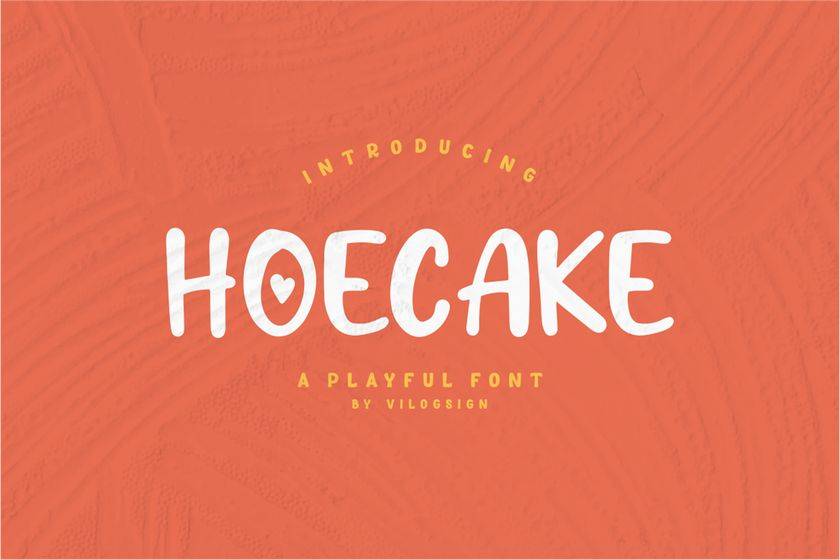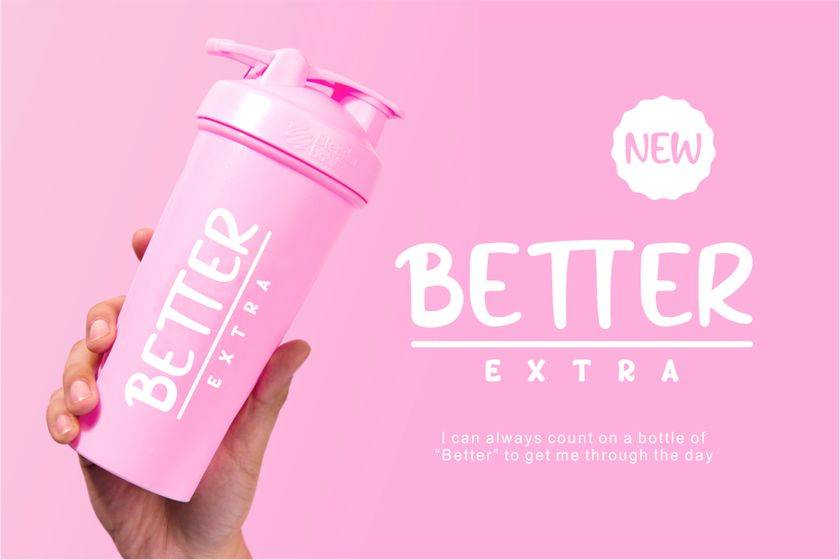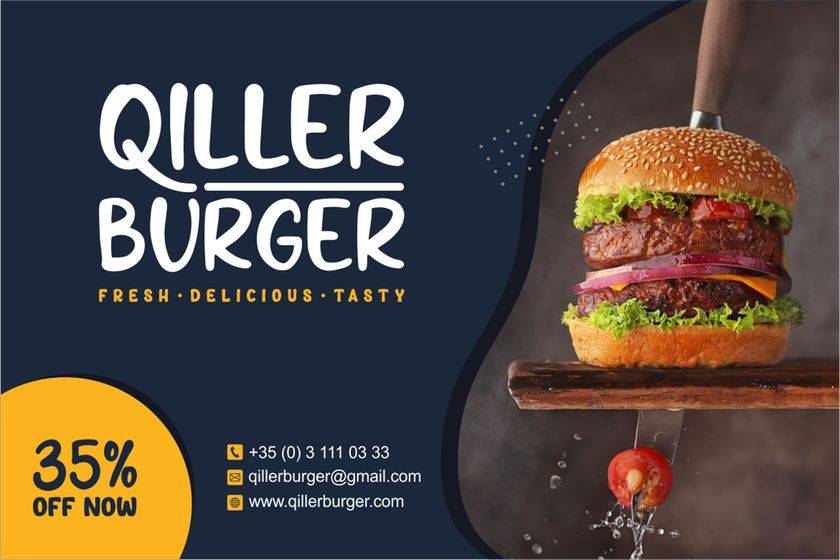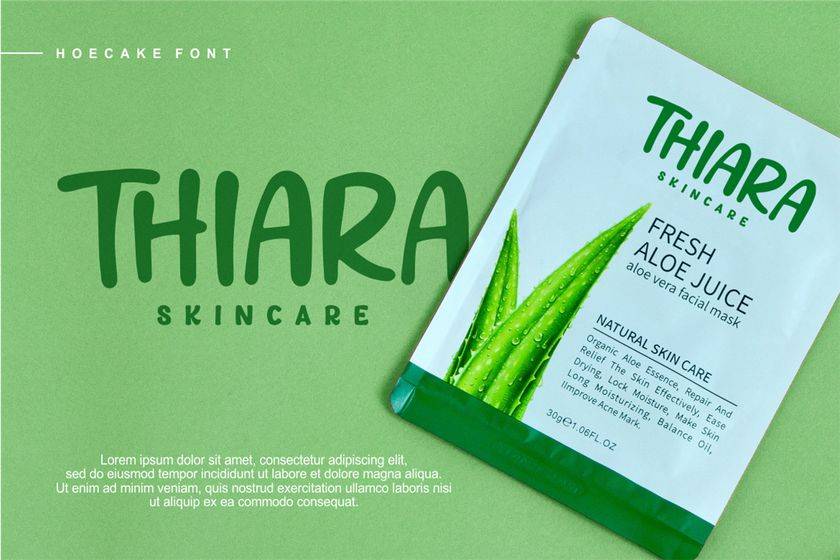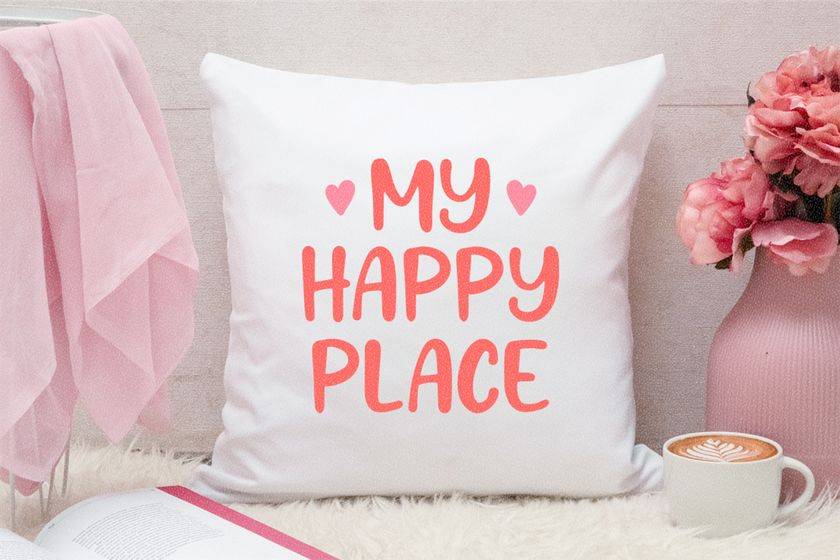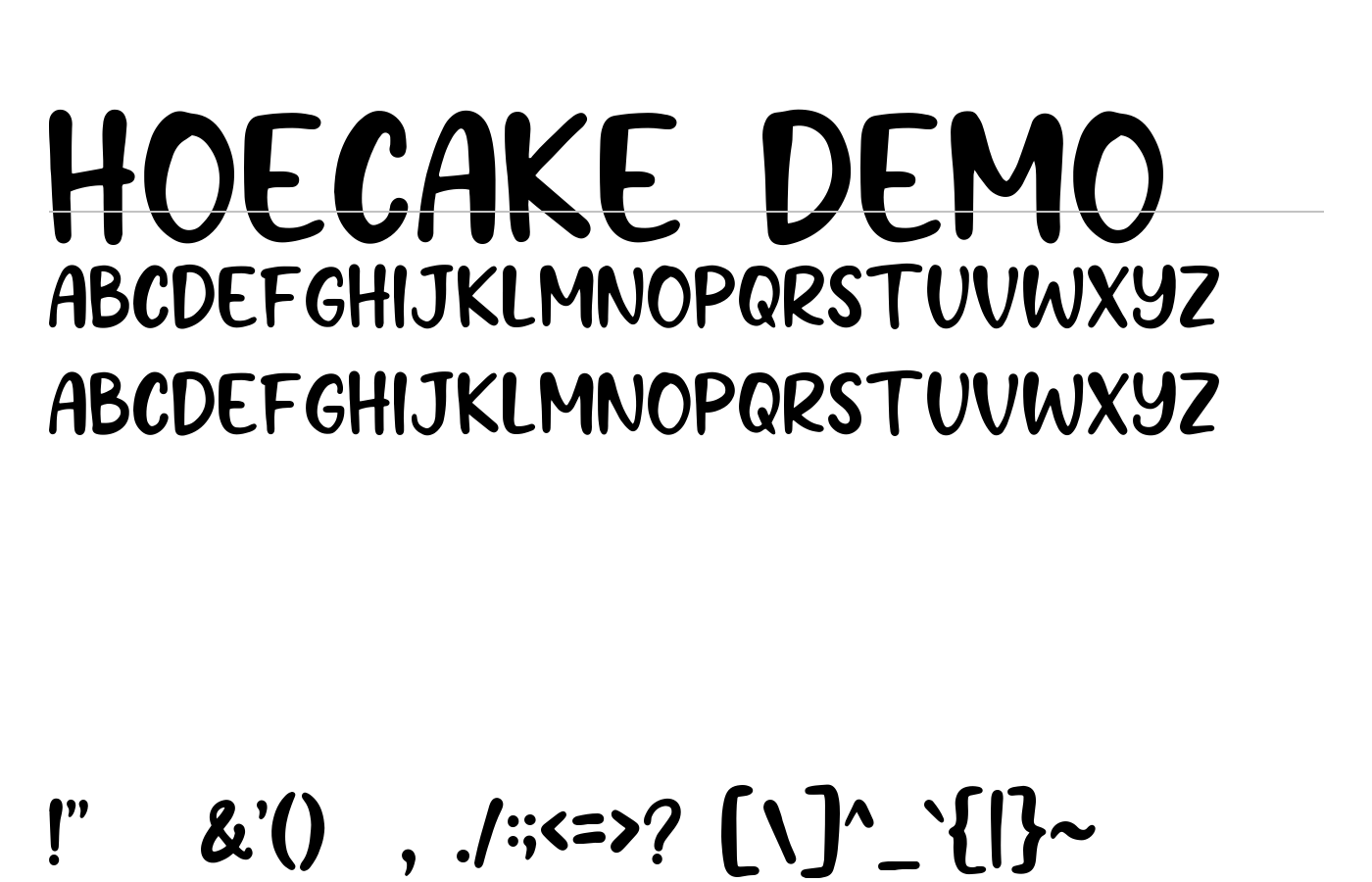
Hoecake is a playful, casual sans serif font with rounded, hand-drawn letterforms that feel friendly and approachable. Its irregular strokes and slightly condensed style give it a warm and organic character, making it ideal for informal branding, children’s products, and creative projects needing a personal touch. This font works best in headlines and packaging where a relaxed, charming vibe is desired.
Hoecake Font
About Hoecake Font
| Font family | Hoecake Font |
| Release date | 2022-06-22 |
| Designer | Vilogsign |